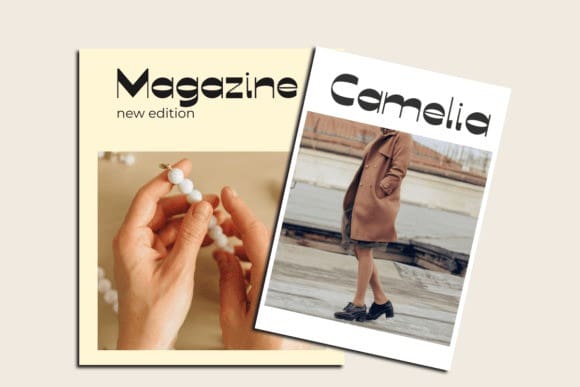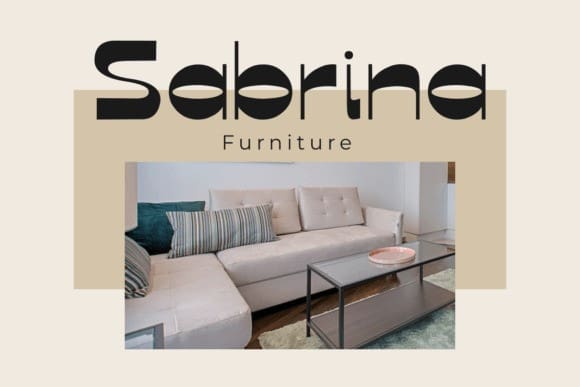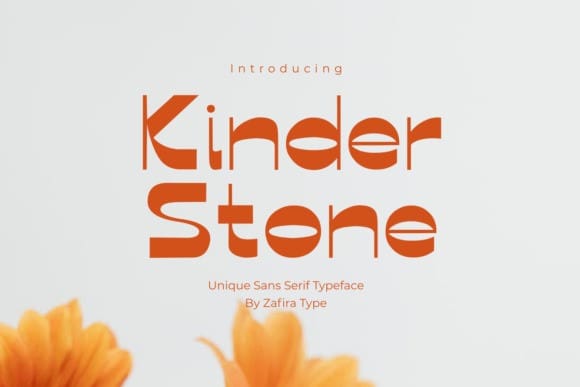
Kinder Stone Typeface
Kinder Stone Typeface, is a bold modern display font with sans serif style. It’s a modern and classic font with a unique and different look. It is perfect for editorial projects, logo designs, web font, clothing branding, product packaging, magazine headers, or simply as a stylish text overlay to any background image.